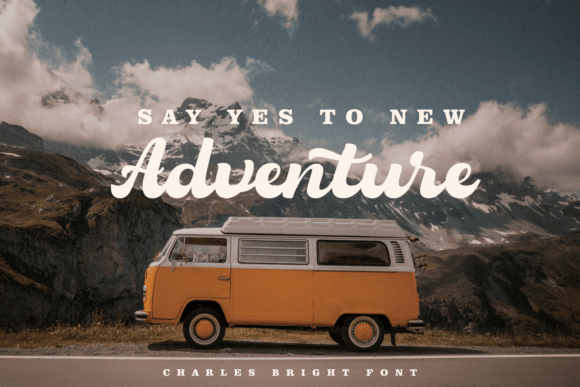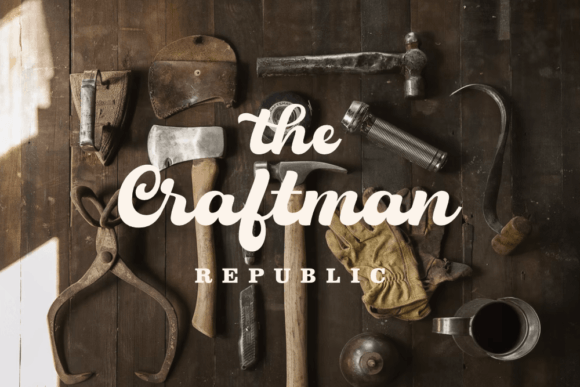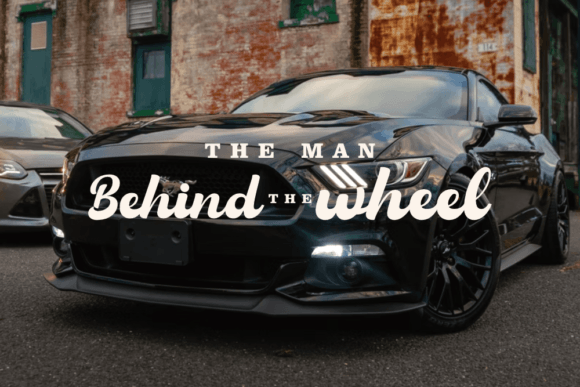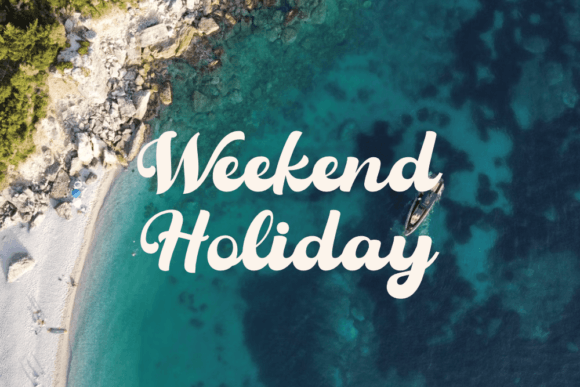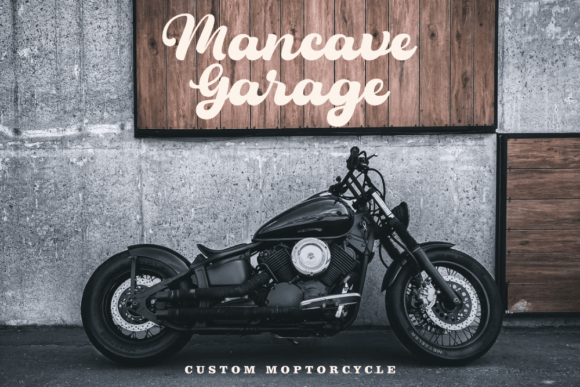
Introducing Charles Bright Font: The Ultimate Retro Handwritten Font for Stunning Designs
Are you on the hunt for a font that exudes style, sophistication, and a dash of nostalgia? Look no further than Charles Bright Font, a ravishing retro handwritten font that is sure to capture your heart. With its unique blend of classic and modern elements, this font is perfect for designers and crafters looking to create gorgeous designs that stand out from the crowd.
The Story Behind Charles Bright Font
Charles Bright Font is a carefully crafted font that draws inspiration from the elegance of traditional handwritten scripts. Its creator, with a keen eye for detail and a deep understanding of typography, has poured their heart and soul into designing a font that is both visually stunning and highly versatile. The result is a font that is not only beautiful but also highly legible, making it perfect for a wide range of design applications.
Key Features of Charles Bright Font
So, what makes Charles Bright Font so special? Here are just a few of its key features:
- Retro Style: Charles Bright Font boasts a distinctly retro aesthetic that is reminiscent of a bygone era. Its classic look and feel make it perfect for designs that require a touch of nostalgia and sophistication.
- Handwritten Look: With its fluid strokes and natural connections, Charles Bright Font has a beautifully handwritten look that adds a personal touch to any design.
- Highly Legible: Despite its ornate appearance, Charles Bright Font is highly legible, even at small sizes. This makes it perfect for use in a wide range of design applications, from headings and titles to body text.
- Versatile: Charles Bright Font is incredibly versatile, making it suitable for use in a wide range of design projects, from branding and advertising to packaging and digital media.
Uses for Charles Bright Font
So, how can you use Charles Bright Font in your designs? The possibilities are endless! Here are just a few ideas to get you started:
- Branding and Identity: Use Charles Bright Font to create stunning logos, business cards, and other branding materials that exude style and sophistication.
- Advertising and Marketing: Add a touch of elegance and refinement to your advertising and marketing materials, from brochures and flyers to social media graphics and email campaigns.
- Packaging Design: Use Charles Bright Font to create eye-catching packaging designs that stand out on store shelves and online.
- Digital Media: Add a touch of retro flair to your digital media, from website headers and social media graphics to video titles and intro sequences.
Tips for Using Charles Bright Font
To get the most out of Charles Bright Font, here are a few tips to keep in mind:
- Use it sparingly: While Charles Bright Font is undoubtedly beautiful, it can be overwhelming if used excessively. Use it sparingly to add a touch of elegance and refinement to your designs.
- Experiment with colors: Charles Bright Font looks stunning in a wide range of colors, from bold and bright to soft and pastel. Experiment with different colors to find the perfect combination for your design.
- Pair it with other fonts: Charles Bright Font pairs beautifully with other fonts, from classic serif fonts to modern sans-serif fonts. Experiment with different font combinations to find the perfect pairing for your design.
| Font Name | Charles Bright Font |
| Author | Letterflow Studio |
In conclusion, Charles Bright Font is a truly exceptional font that is sure to capture your heart. With its unique blend of classic and modern elements, this font is perfect for designers and crafters looking to create stunning designs that stand out from the crowd. Whether you’re looking to add a touch of nostalgia and sophistication to your branding, advertising, packaging, or digital media, Charles Bright Font is the perfect choice. So why wait? Fall for its ravishing style and use Charles Bright Font to create gorgeous designs that leave a lasting impression.